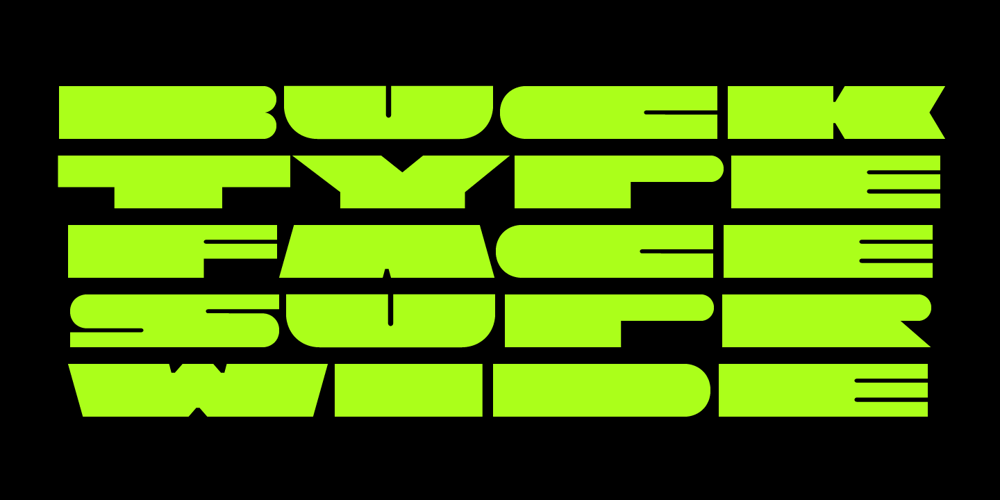
Buck Font Family was designed by Anastasia Piven and published by Here East Fonts. Buck contains 1 styles and family package options. BUCK HEAVY is an extremely monumental, architectural and brutal unicase font, designed for maximum visual and emotional impact. Use it in big and really big scales. It’s great for headlines, prints, branding, editorial and websites — everything that strives for being really bold, vibrant and super strong and masculine.